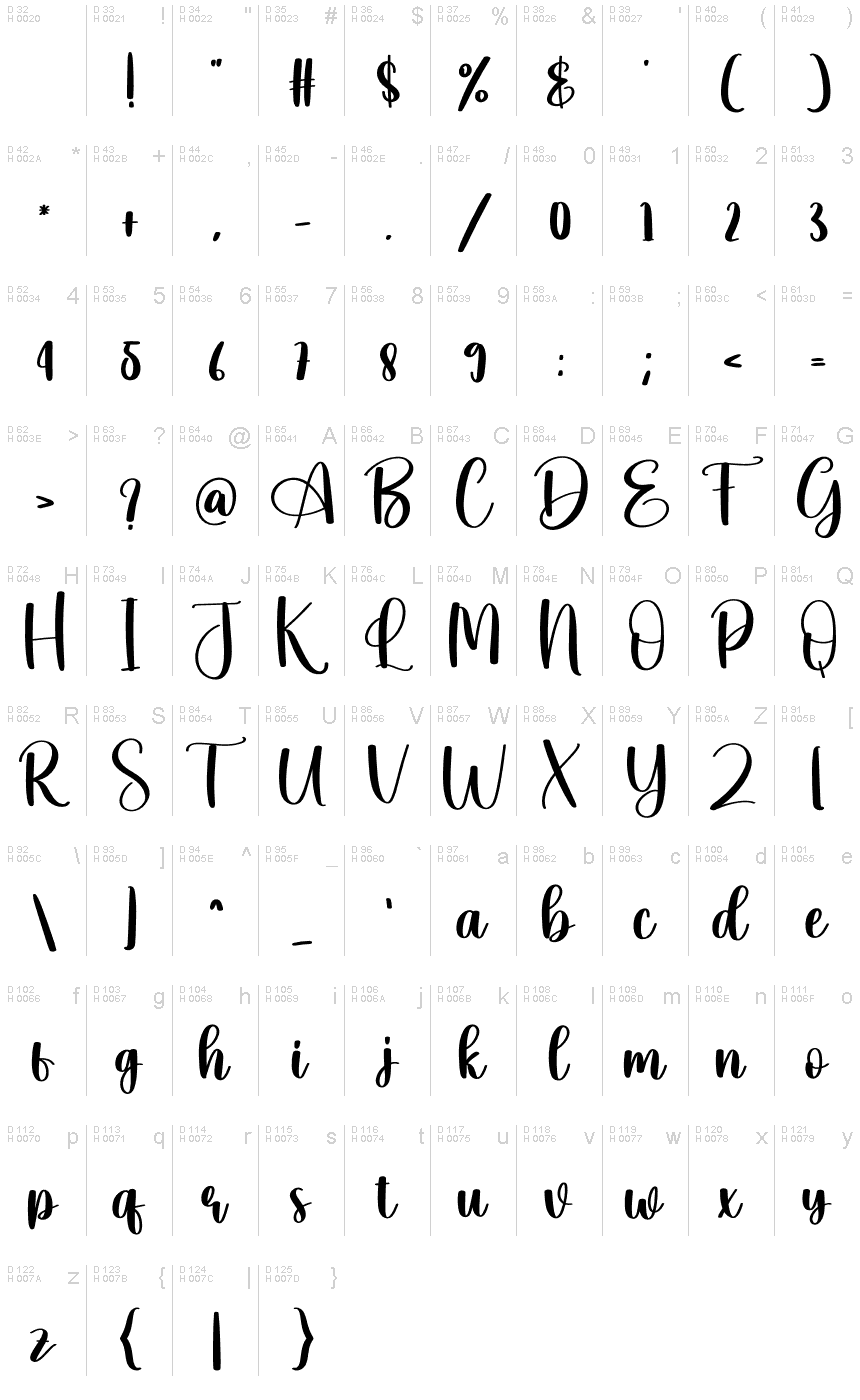
Seabird
Seabird, a creation by Scratchones, effortlessly captures the essence of personal touch in its handwritten style. Its fluid curves and varying stroke weights evoke a natural elegance that's both inviting and distinctive. The graceful flow of Seabird lends it an aesthetic appeal that is versatile yet intimate, making it ideal for projects that require a touch of human warmth.
With each character thoughtfully designed to reflect the spontaneity of handwriting, Seabird stands out with its unique blend of casual charm and sophistication. This font's ability to convey authenticity makes it particularly suitable for branding, wedding invitations, greeting cards, and any creative endeavor where a bespoke feel is desired.
The handwritten nature of Seabird ensures that your text will have an approachable and bespoke quality, reminiscent of ink on paper. Its stylish appearance provides endless possibilities for designers looking to infuse their work with personality and flair.